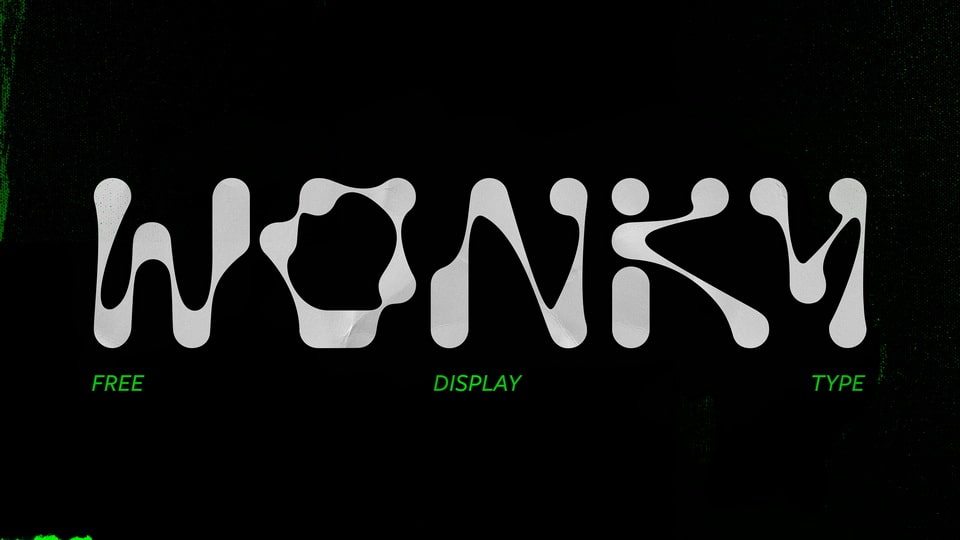
Download Wonky font, a display typeface for the weird and the wacky. The irregular shapes of Wonky font create a great contrast and fit for all things spooky, fluid or quirky – for anything that’s a bit different.